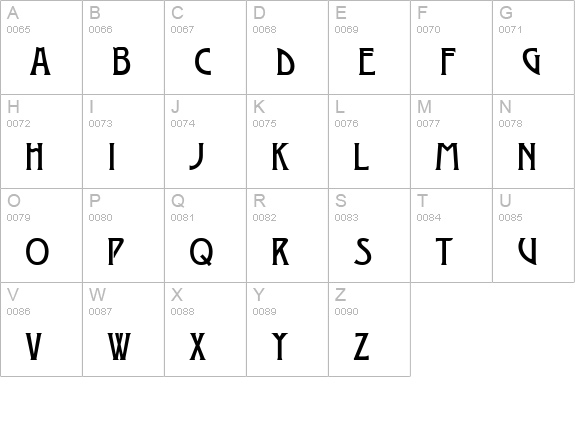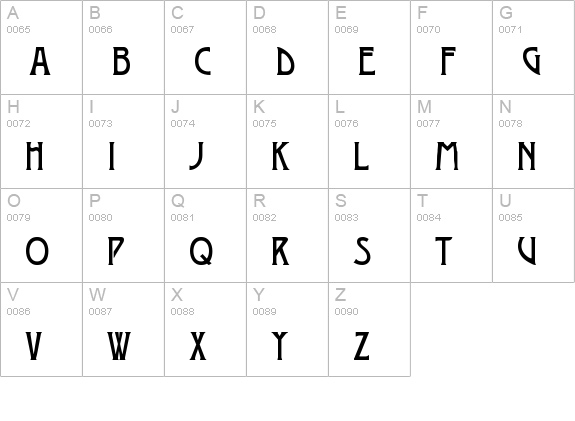
Modernist One Font Details
Introducing Modernist One font, a sleek and sophisticated typeface that exudes a sense of modern elegance and minimalism. This font is characterized by its clean lines, sharp angles, and unique geometric shapes that make it stand out in any design project. Its bold yet refined appearance makes it perfect for creating eye-catching headlines, logos, and branding materials. Modernist One font is a versatile choice for both digital and print designs, adding a touch of contemporary flair to any project. Whether you're working on a website, poster, or brochure, this font will help you achieve a sleek and professional look. The best part? Modernist One font is available for free download at FontsMarket.com, making it accessible to designers and creatives looking to elevate their work with a modern touch. Don't miss out on this fantastic opportunity to add a touch of sophistication to your designs with the stylish Modernist One font.